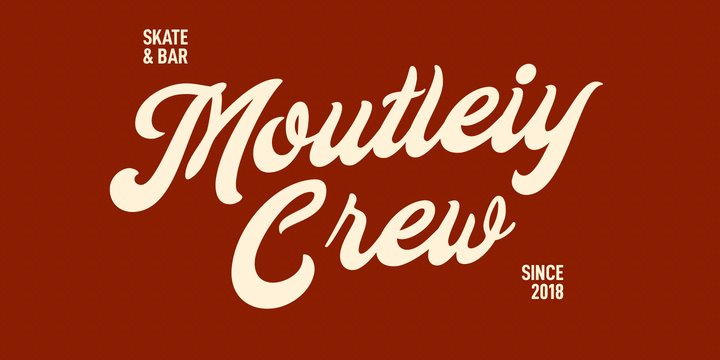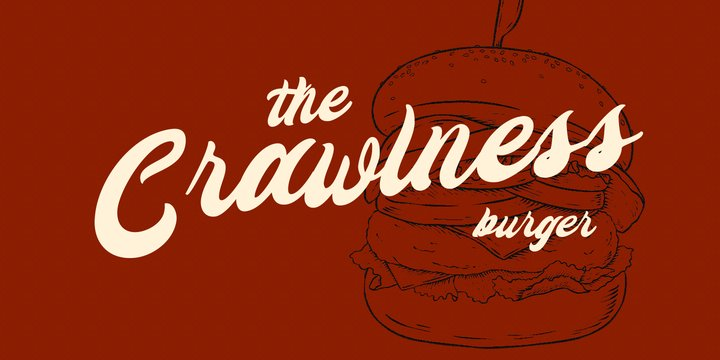
Neillo Font
Neillo FontNeillo is a retro script font. With bold contrast stroke, fun character with a bit of ligatures and stylistic alternates. To give you an extra creative work. Neillo font support multilingual more than 100+ language. This font is good for logo design, Social media, Movie Titles, Books Titles, a short text even a long text letter and good for your secondary text font with sans or serif. Make a stunning work with Neillo font.